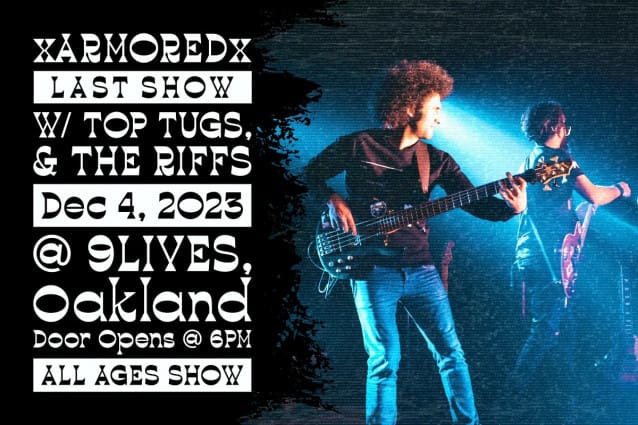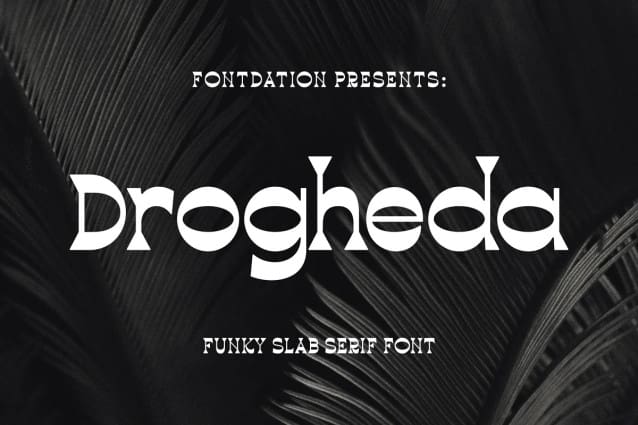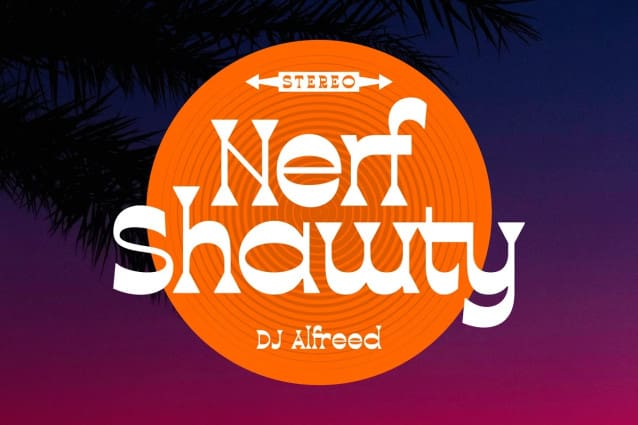
Drogheda Display Font
Drogheda Display Font. A reversed-contrast slab serif with a strong but flexible personality. Crafted with high attention to the details, gives you the best designing experience. Suits best for poster designs, headlines, quote writings, etc.